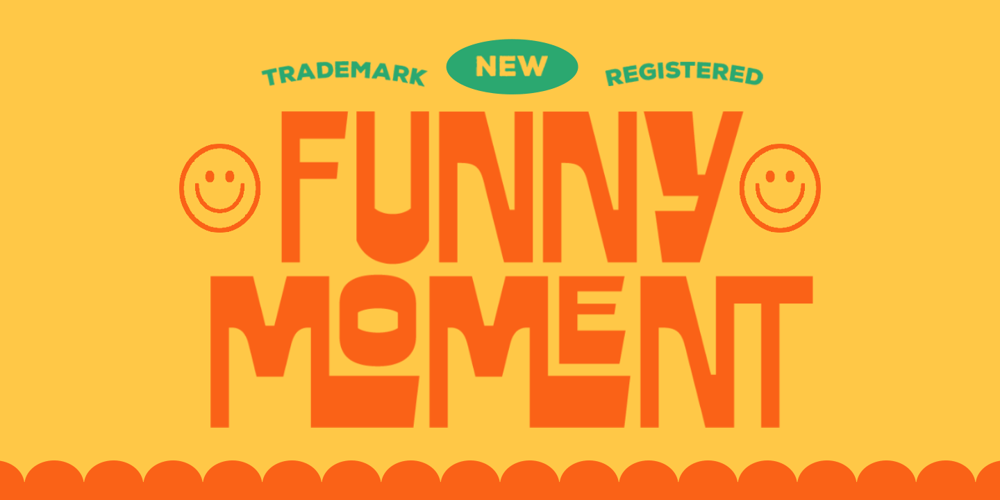
Funny Moment Font Family was designed by Hendry Juanda and published by Letterhend. Funny Moment contains 1 styles and family package options. Funny Moment is a retro display font which will bring you back to 60s feel. This font perfectly made to be applied especially in logo, and the other various formal forms such as invitations, labels, logos, magazines, books, greeting / wedding cards, packaging, fashion, make up, stationery, novels, labels or any type of advertising purpose.Features : Uppercase & lowercase Numbers and punctuation Alternates & Ligatures Multilingual Support PUA encoded